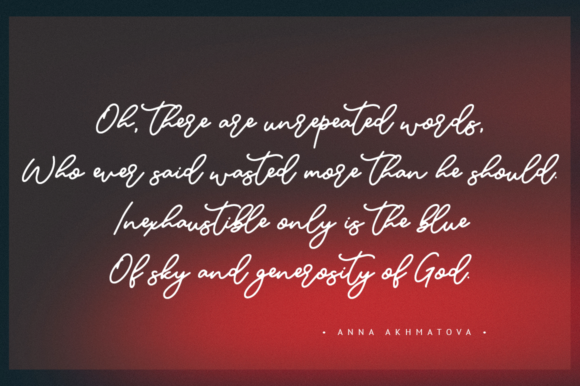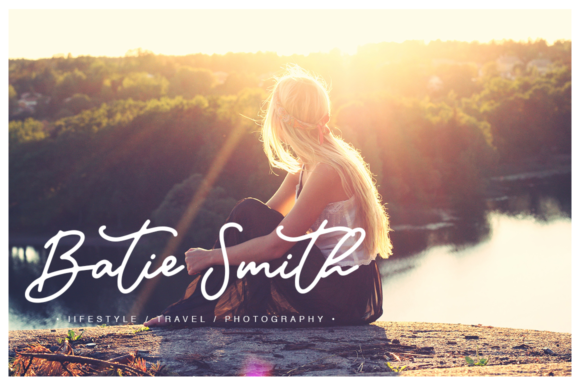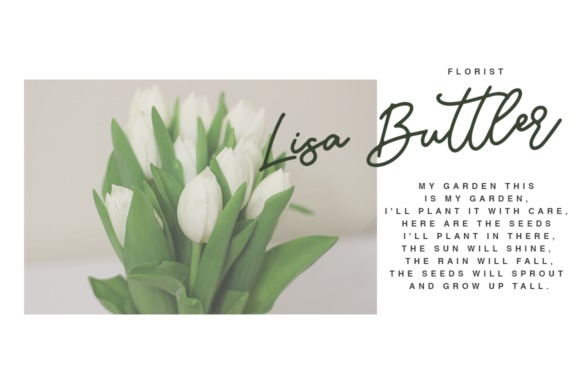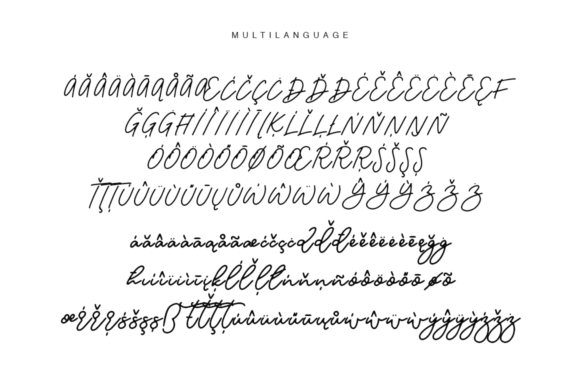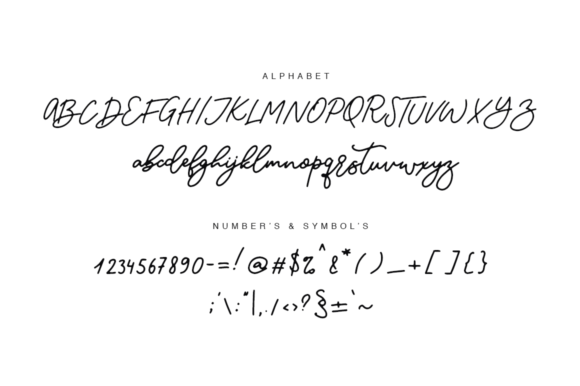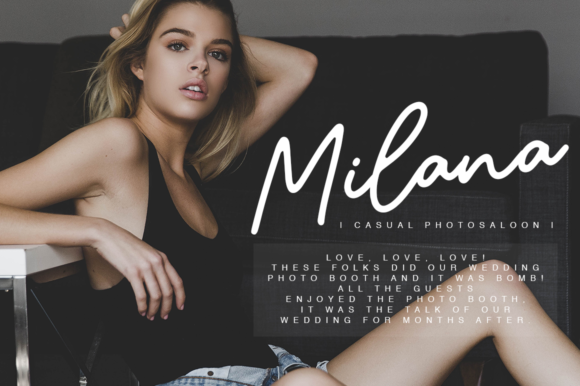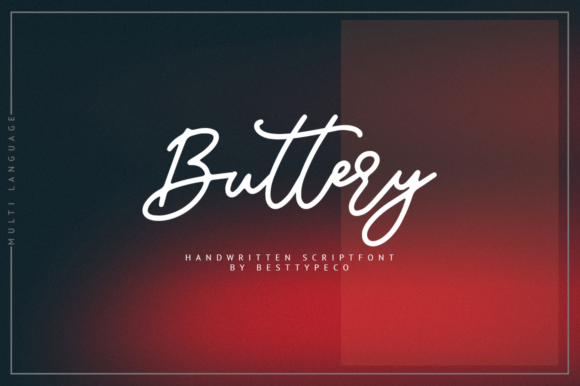
The Quest for the Perfect Font: Discovering Buttery
I’ll never forget the frustration of scrolling through font after font, searching for the perfect one to bring my design project to life. It was for a client’s wedding invitation, and I wanted something that exuded warmth, elegance, and a touch of whimsy. As I clicked through page after page of Google results, I began to lose hope. That’s when I stumbled upon Buttery, a fresh, handmade calligraphy font that stole my heart.
First Impressions: A Love Letter to Buttery
Buttery is a new, fresh, handmade calligraphy font that’s perfect for designers, crafters, and creative hobbyists looking to add a personal touch to their projects. Its elegant, flowing script is very suitable for greeting cards, branding materials, business cards, quotes, posters, and more!
What I Love About Buttery
- ✨ Unique, hand-crafted feel that adds a touch of personality to any design
- ✅ Beautifully designed to work well in both digital and print formats
- 💫 Highly legible, even at smaller font sizes
- 🎨 Versatile and adaptable to various design styles and themes
While Buttery is an amazing font, it’s not perfect. Here are a few things to keep in mind:
- ⚠️ Some letters may require manual kerning for optimal spacing
- 🤔 Limited availability of certain special characters or glyphs
- Experiment with OpenType features, such as stylistic alternates and glyphs, to add more personality to your design.
The Story Behind Buttery: Designer Inspiration
Buttery was created with the intention of bringing a touch of handmade elegance to the digital world. The designer, inspired by traditional calligraphy and lettering, aimed to create a font that would be both beautiful and versatile. With its unique, hand-crafted feel, Buttery is perfect for designers and crafters looking to add a personal touch to their projects.
Q: Is Buttery suitable for body text?
A: While Buttery is beautiful, it’s best suited for headlines, titles, and short paragraphs. For body text, you may want to choose a more traditional font.